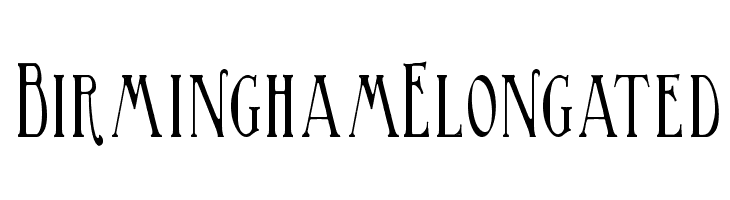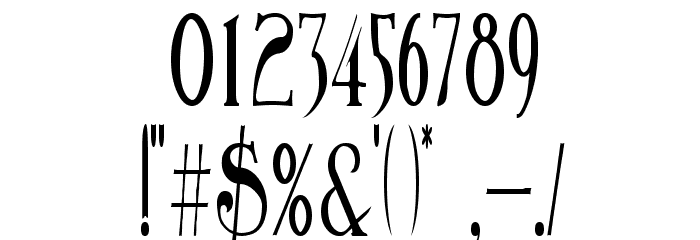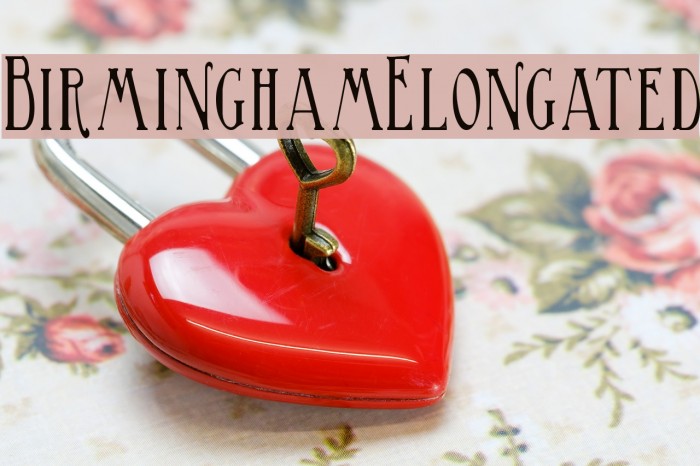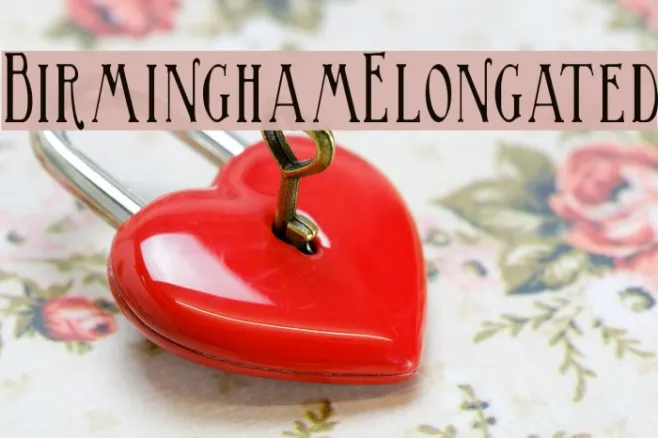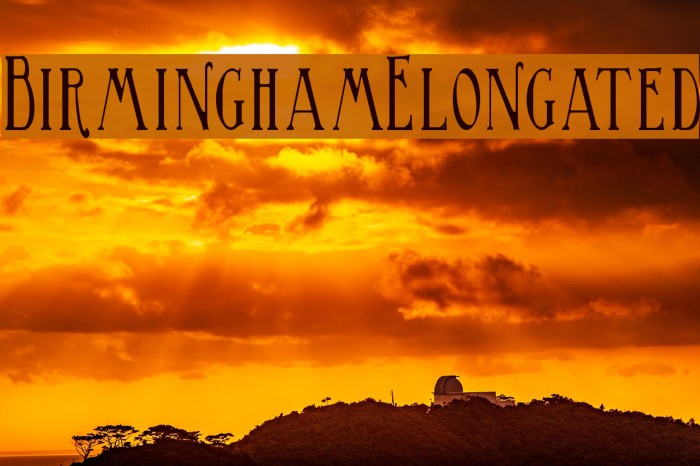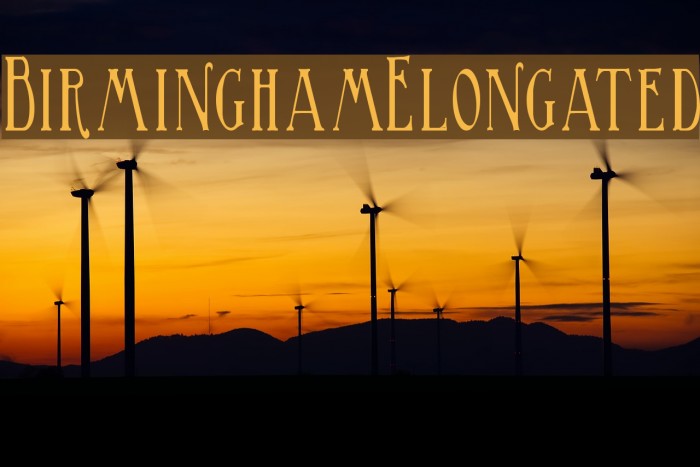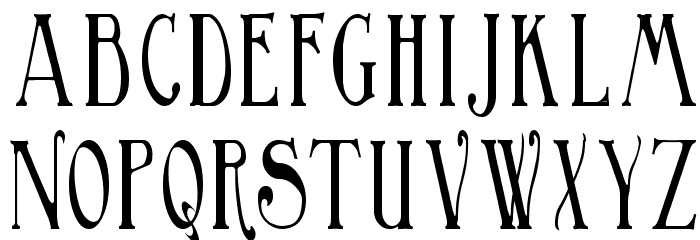
BirminghamElongated Font
BirminghamElongated Description
This font features an elongated and elegant design with a distinctively tall and narrow structure. The characters exhibit a high contrast between thick and thin strokes, giving it a sophisticated and refined appearance. The serifs are sharp and pronounced, adding to its formal and classic feel. The uppercase letters are particularly striking, with unique curves and angles that enhance its decorative quality. The lowercase letters maintain the same elongated style, ensuring consistency throughout. The numerals are equally stylized, matching the overall aesthetic of the font. Special characters are included, each designed to complement the font's distinctive look.
| Proposed Projects | Ideal for luxury branding, wedding invitations, editorial design, and high-end product packaging. |